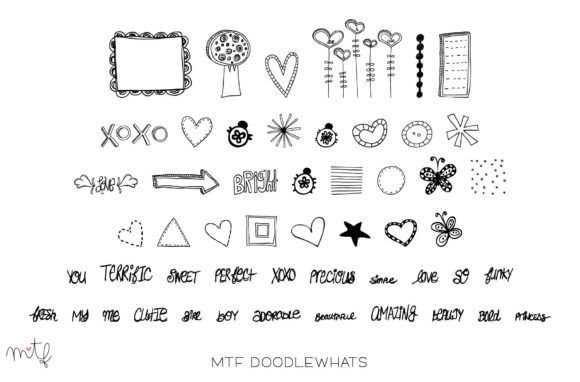
Discovering the Joy of Doodlewhats Font
Have you ever found yourself in a creative rut, staring at a blank page or screen, wondering where to begin? It’s a feeling all too familiar for designers, but it’s in these moments of uncertainty that we stumble upon the perfect spark. For me, that spark was the discovery of Doodlewhats Font – a delightful dingbats font that brings a touch of whimsy to any project.
Designed to bring a smile to your face, Doodlewhats Font is a lovely collection of doodles that include sweet words, adorable hearts, and delicate butterflies. It’s the perfect typeface for girly projects, children-related designs, or anything else that needs a playful touch. As a designer, you’ll appreciate the versatility of Doodlewhats Font, which adds a unique and charming element to your work.
- Unique Characteristics: Doodlewhats Font features a playful, handwritten style with intricate doodles and flourishes, making it ideal for creative and artistic applications.
Doodlewhats Font Review
As a designer, I’ve had the chance to work with Doodlewhats Font, and I’m excited to share my honest review with you.
- ✨ Unique and playful personality – Doodlewhats Font brings a whimsical touch to any design project.
- ✨ Versatile – it’s suitable for a wide range of applications, from children’s books to social media graphics.
- ✨ Easy to read – despite its playful nature, Doodlewhats Font is still legible and easy to read, even at smaller font sizes.
However, there are some limitations:
- ⚠️ Limited character set – Doodlewhats Font doesn’t support all languages or special characters, which can be a limitation for global projects.
- ⚠️ Not ideal for body text – while it’s great for headlines and titles, Doodlewhats Font can be too playful for large blocks of body text.
Overall, I think Doodlewhats Font is a great addition to any designer’s toolkit, but it’s not a one-size-fits-all solution. It’s perfect for projects where you want to add a touch of whimsy and personality, but may not be the best choice for more formal or technical projects.
Tips for Getting the Most Out of Doodlewhats Font
Use Doodlewhats Font to add a playful and whimsical touch to your designs.
Pair it with bold colors and geometric shapes for a modern look.
Experiment with different font sizes and combinations for unique effects.
Doodlewhats Font is perfect for:
Children’s book illustrations
Party invitations and decorations
Marketing materials for creative businesses